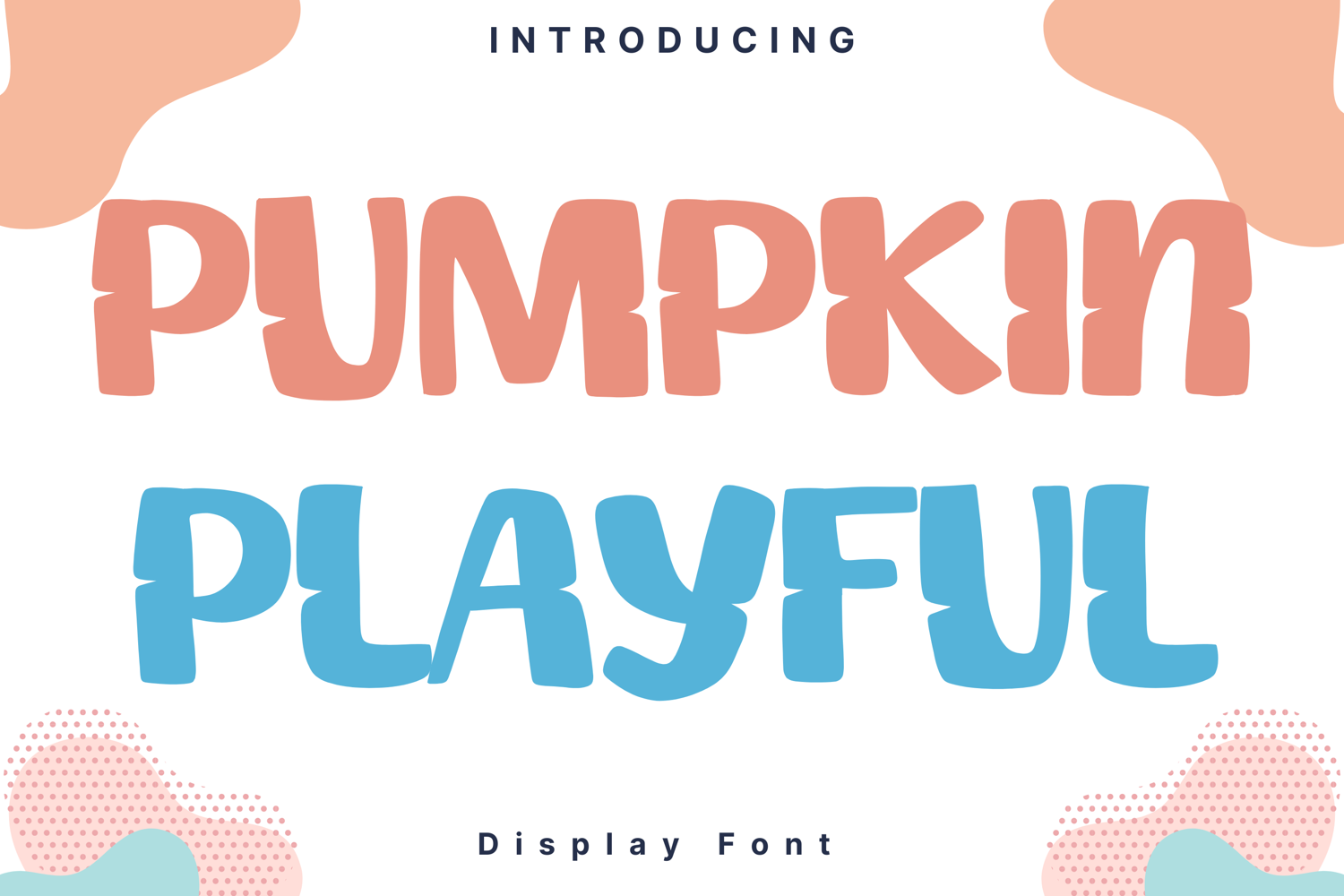
Pumpkin Playful Style
PumpkinPlayful
Pumpkin Playful is a bold, rounded display font with a fun and slightly quirky look. Its chunky strokes and irregular curves create a playful, cartoon-like style, making it perfect for Halloween posters, spooky-themed crafts, kid-friendly party invitations, or fun merchandise. The letters balance between spooky and cheerful, offering versatility for seasonal designs.